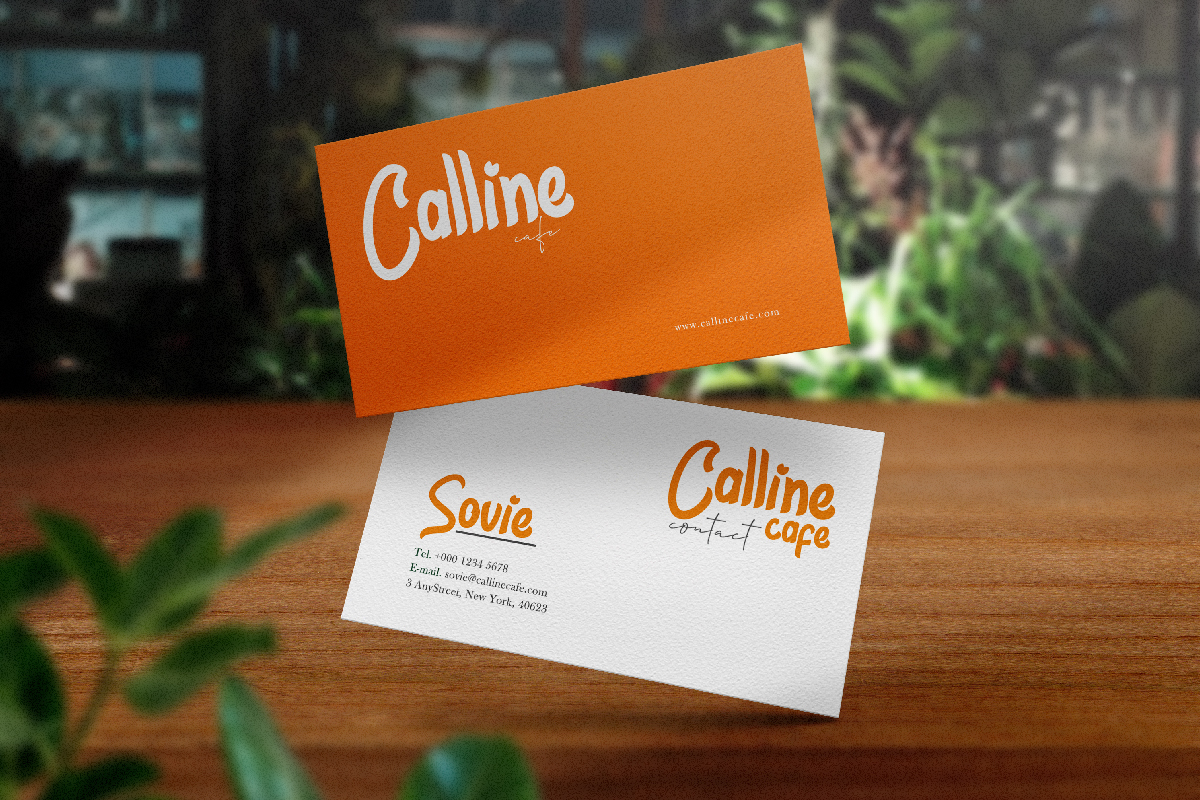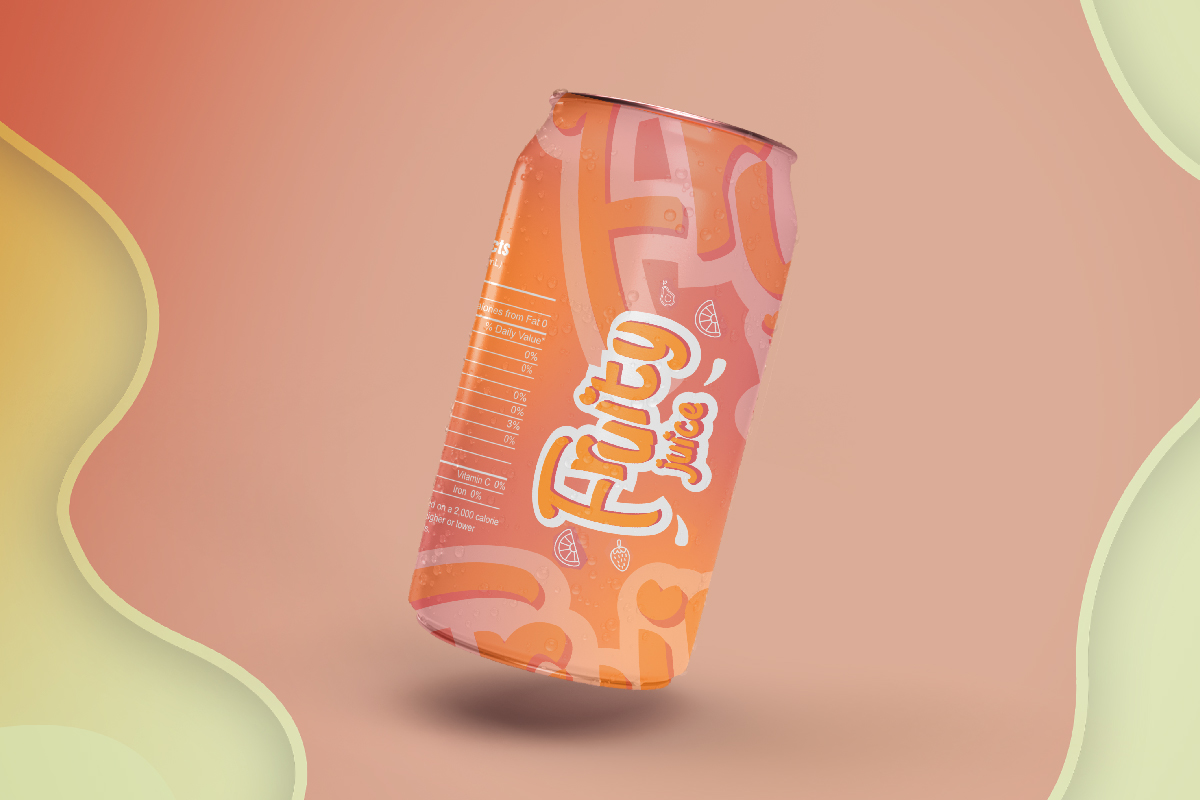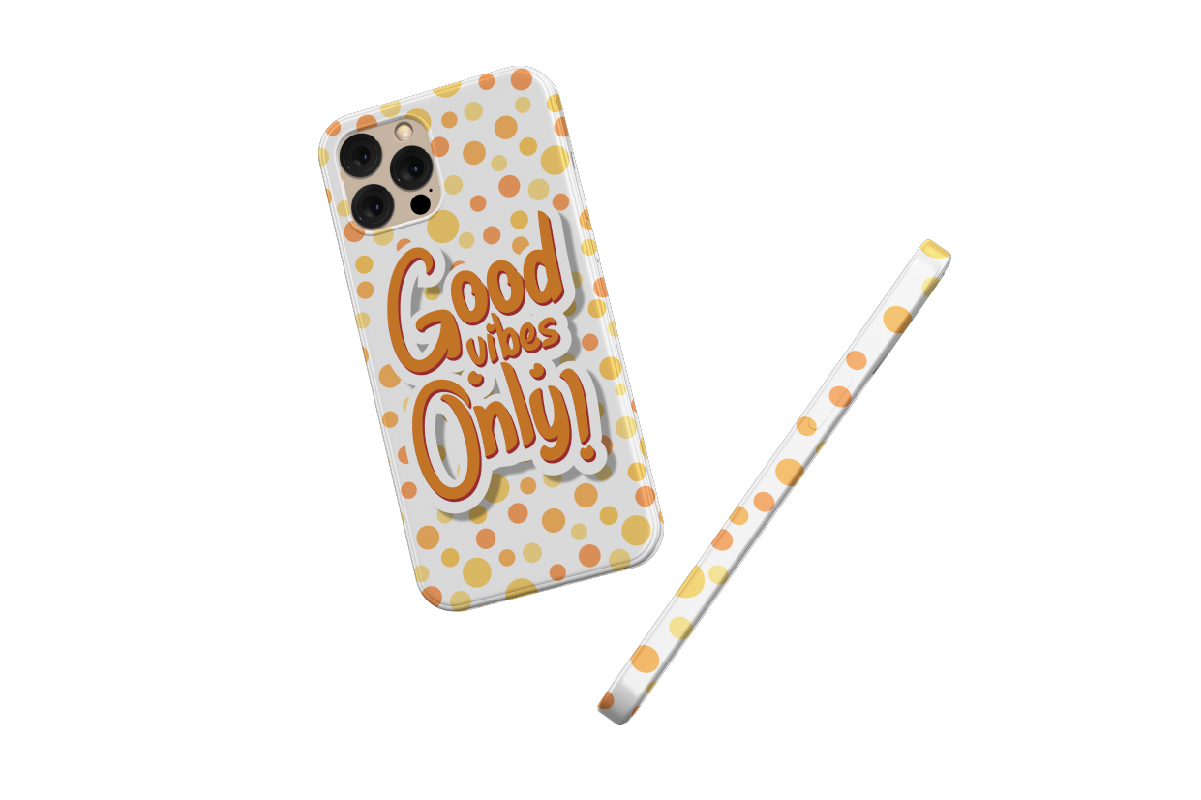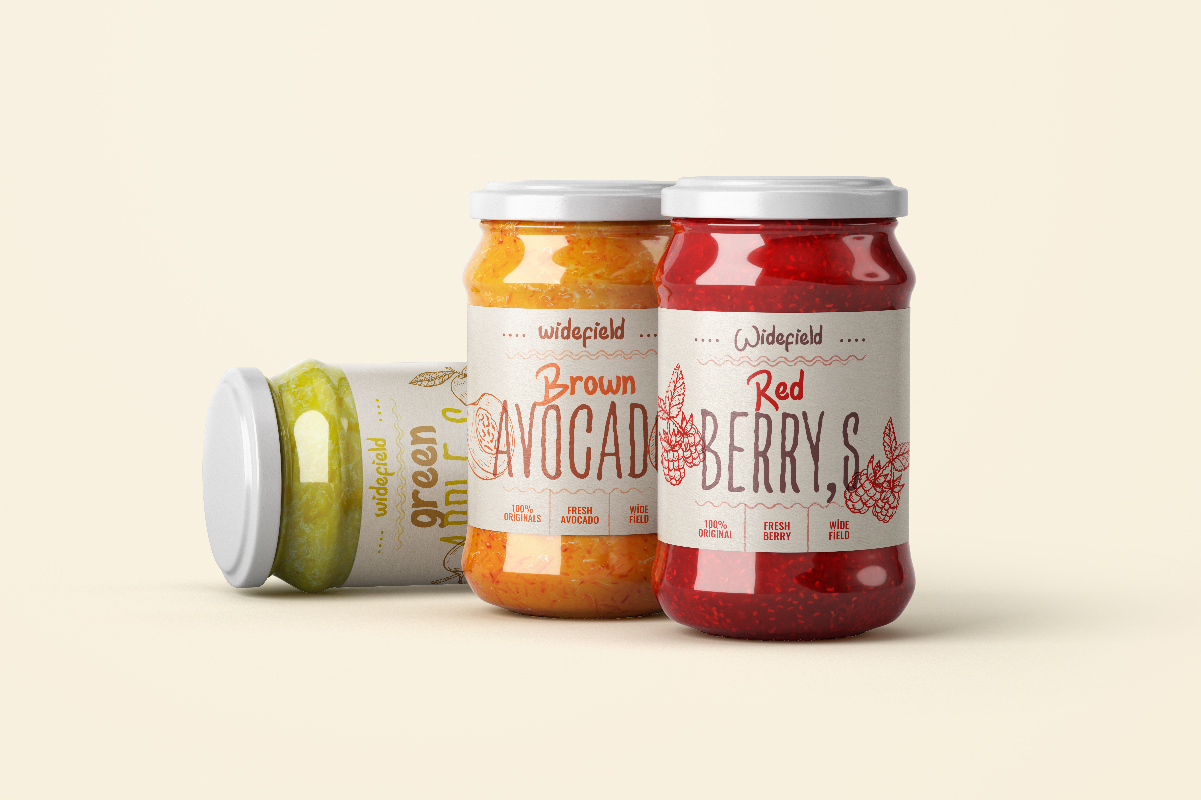
Newry Font
Newry Brush Font
This font comes with unique shape letters that are great for any projects for games, fun events, Movie, poster, Magazine, Music, Video, outdoor, cartoon etc. With extended license you can use it for any your special projects including : headlines, promotion, events, branding, advertising, magazine, signage, invitation, stationery, social media posts, label, or and any projects that need unique strong style. The theme/industries of this font is School, kindergarten, Vintage, Horror, Movie, Game, Magazine, Music, Video, Sports, etc